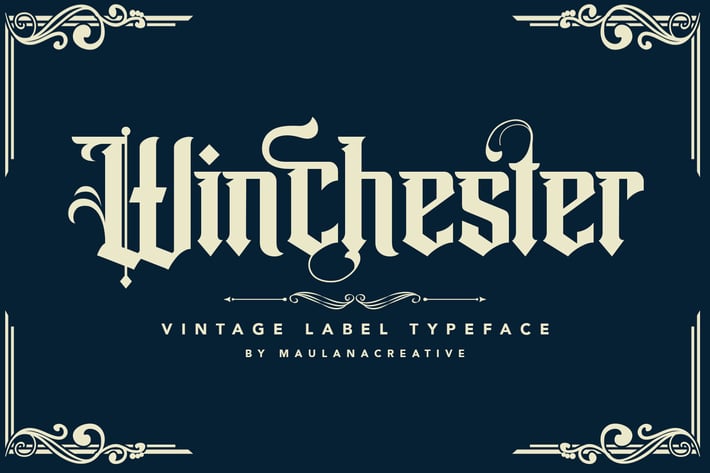
Winchester Blackletter Vintage Label Typeface Font
Introducing Winchester Blackletter Vintage
Winchester Blackletter Vintage is a handmade Modern Victorian handlettering, which is combining modern and classic typography with some awesome alternates. Yes we back to early 1800s, bring classic touch on this decade.